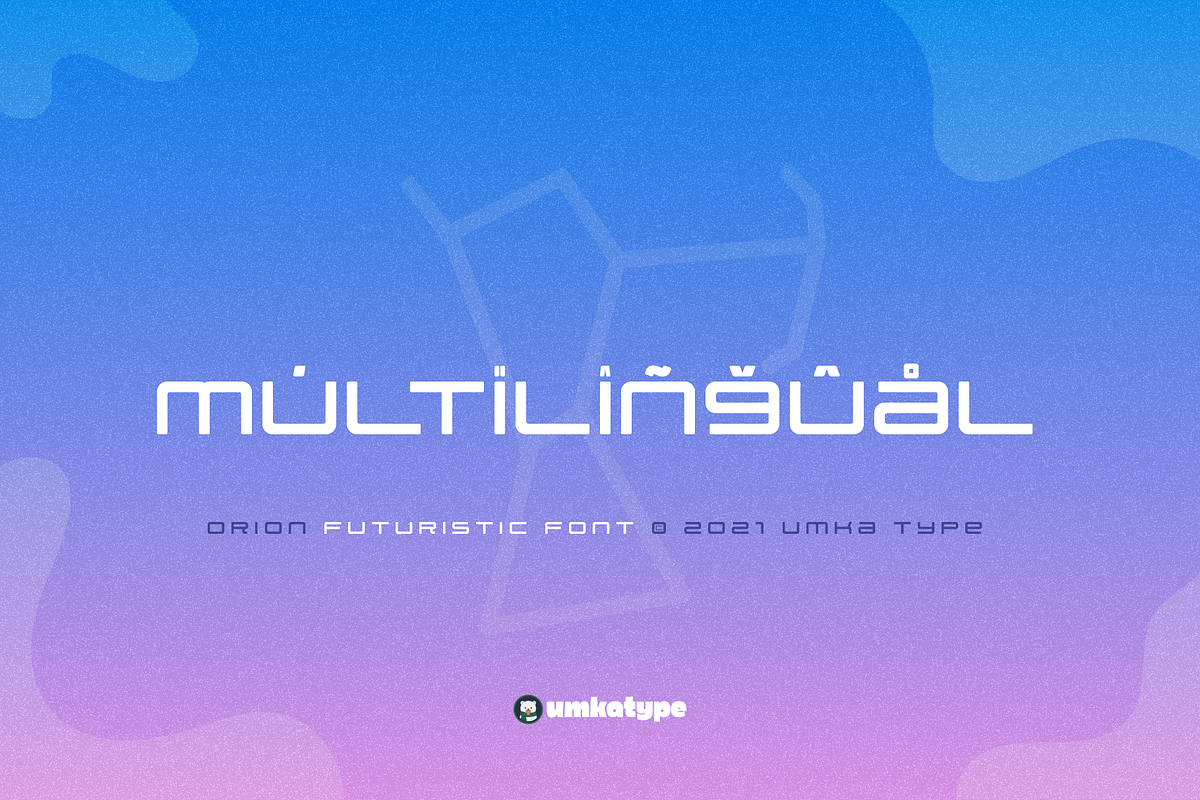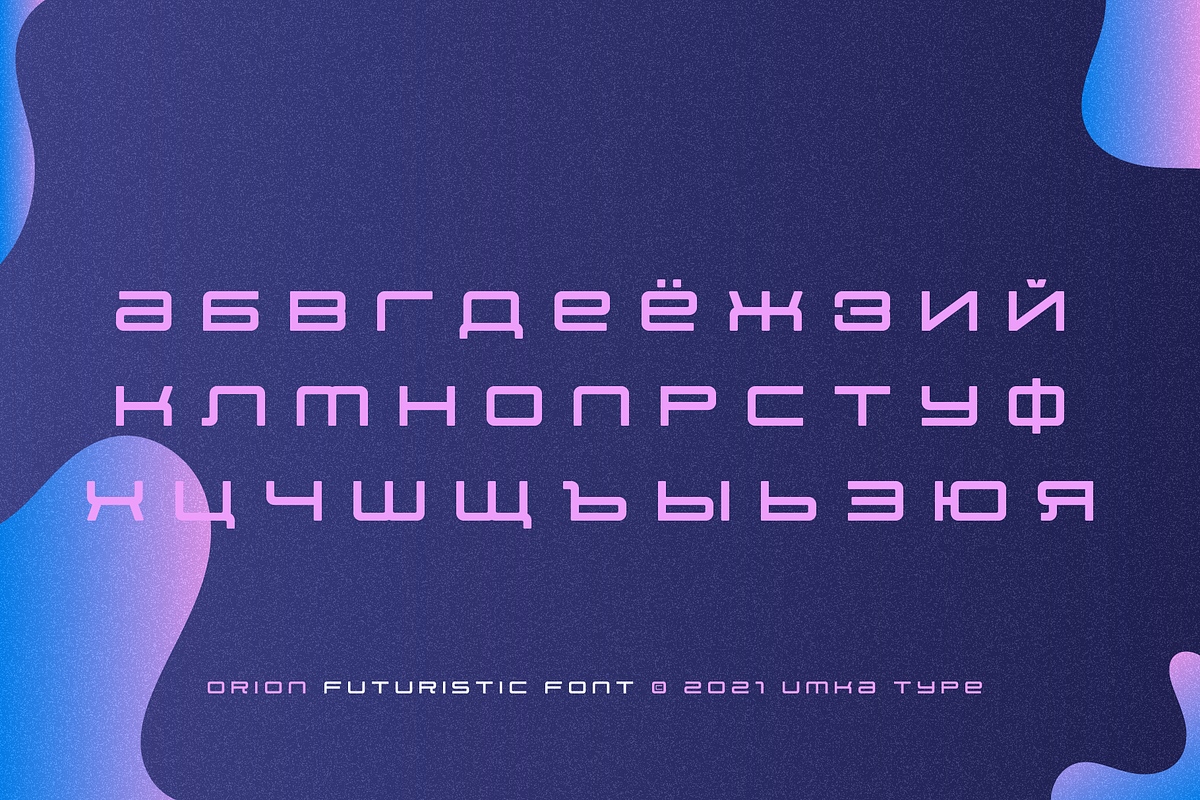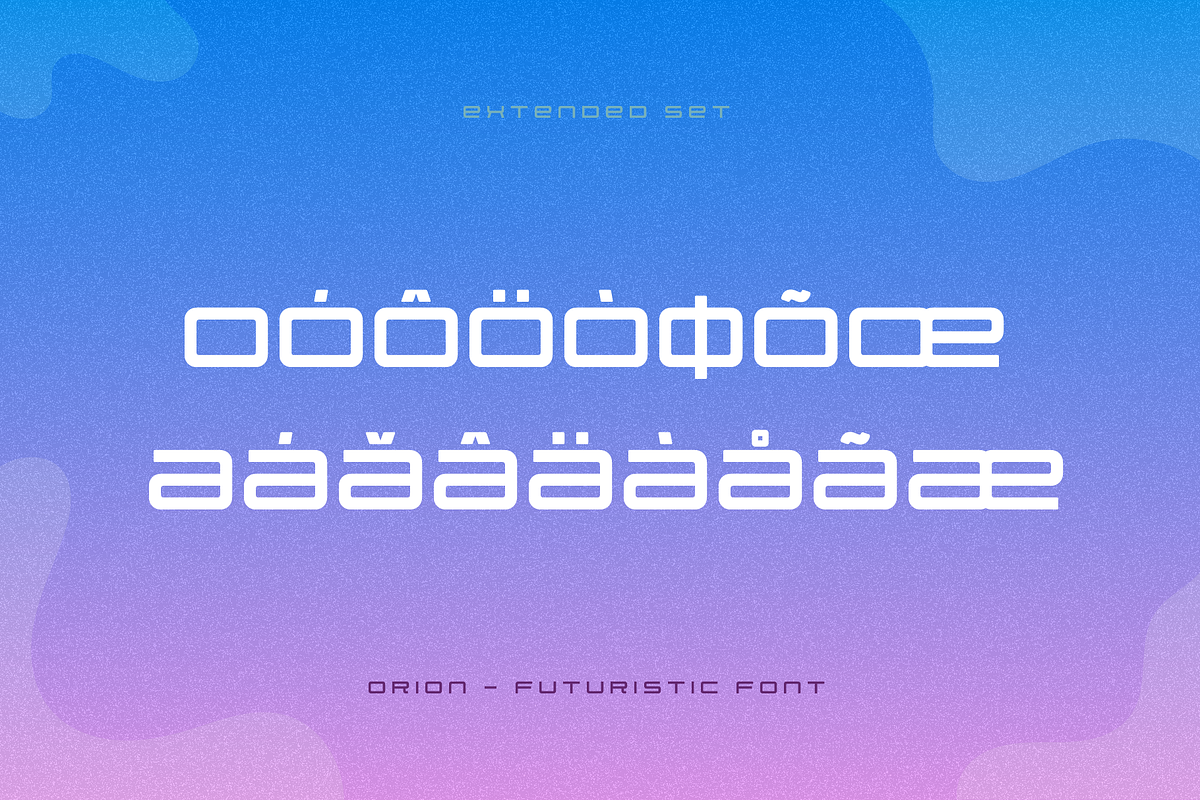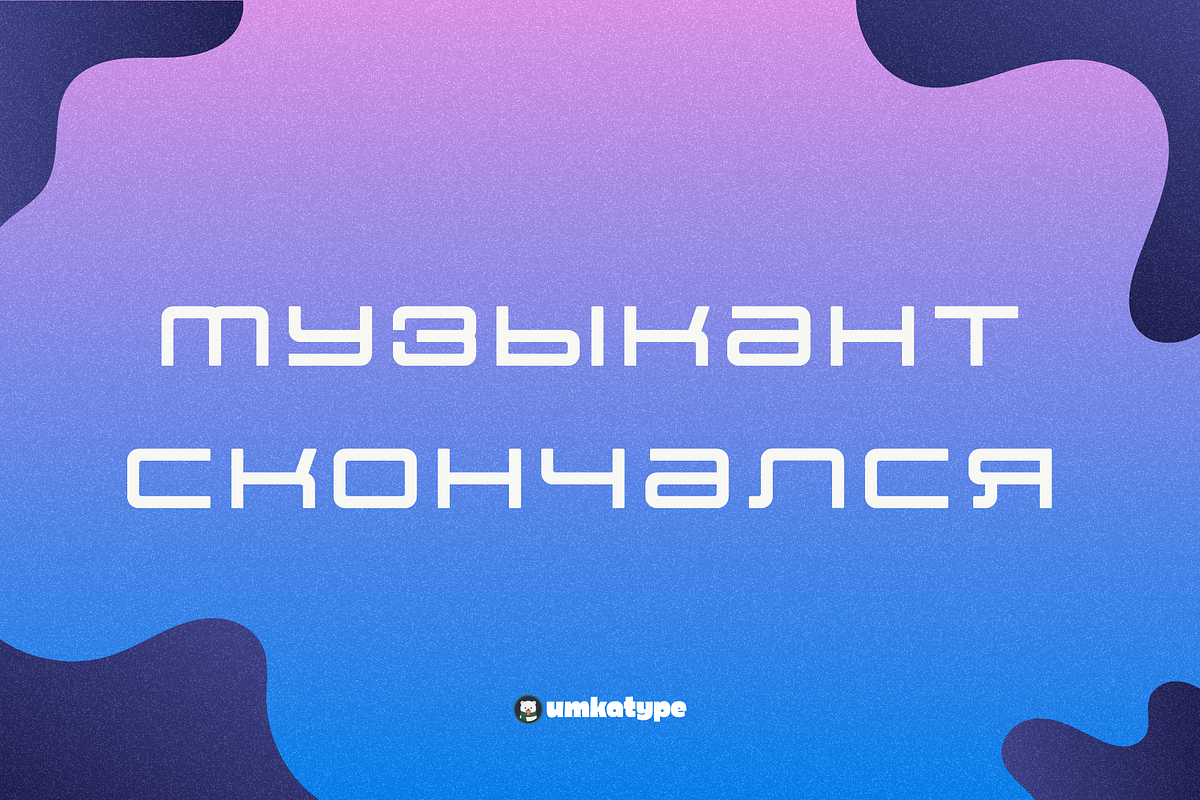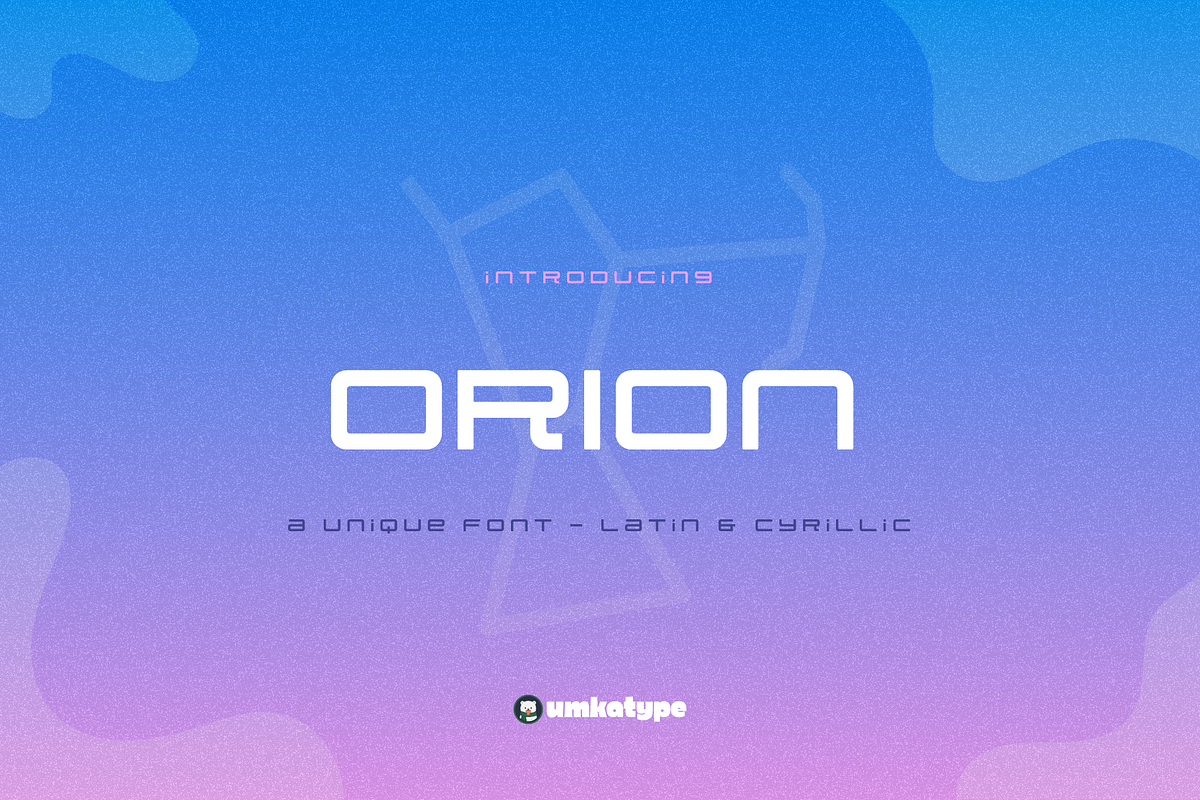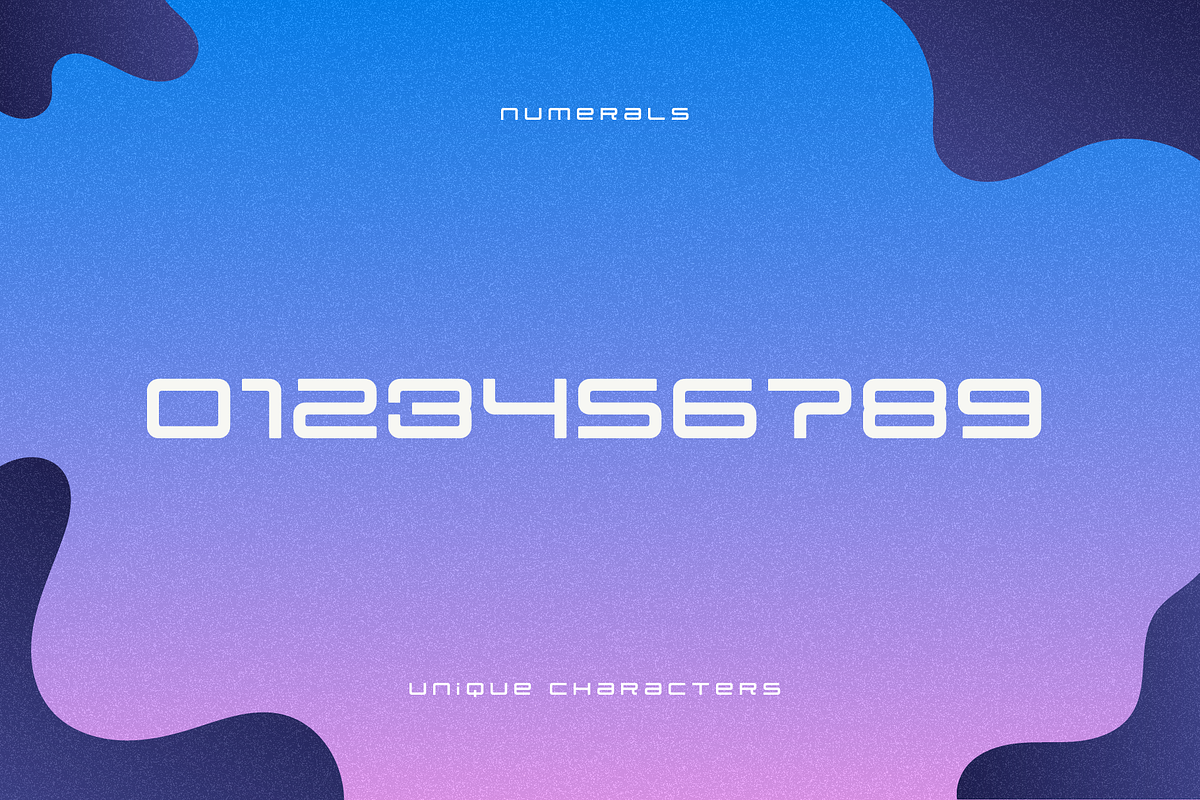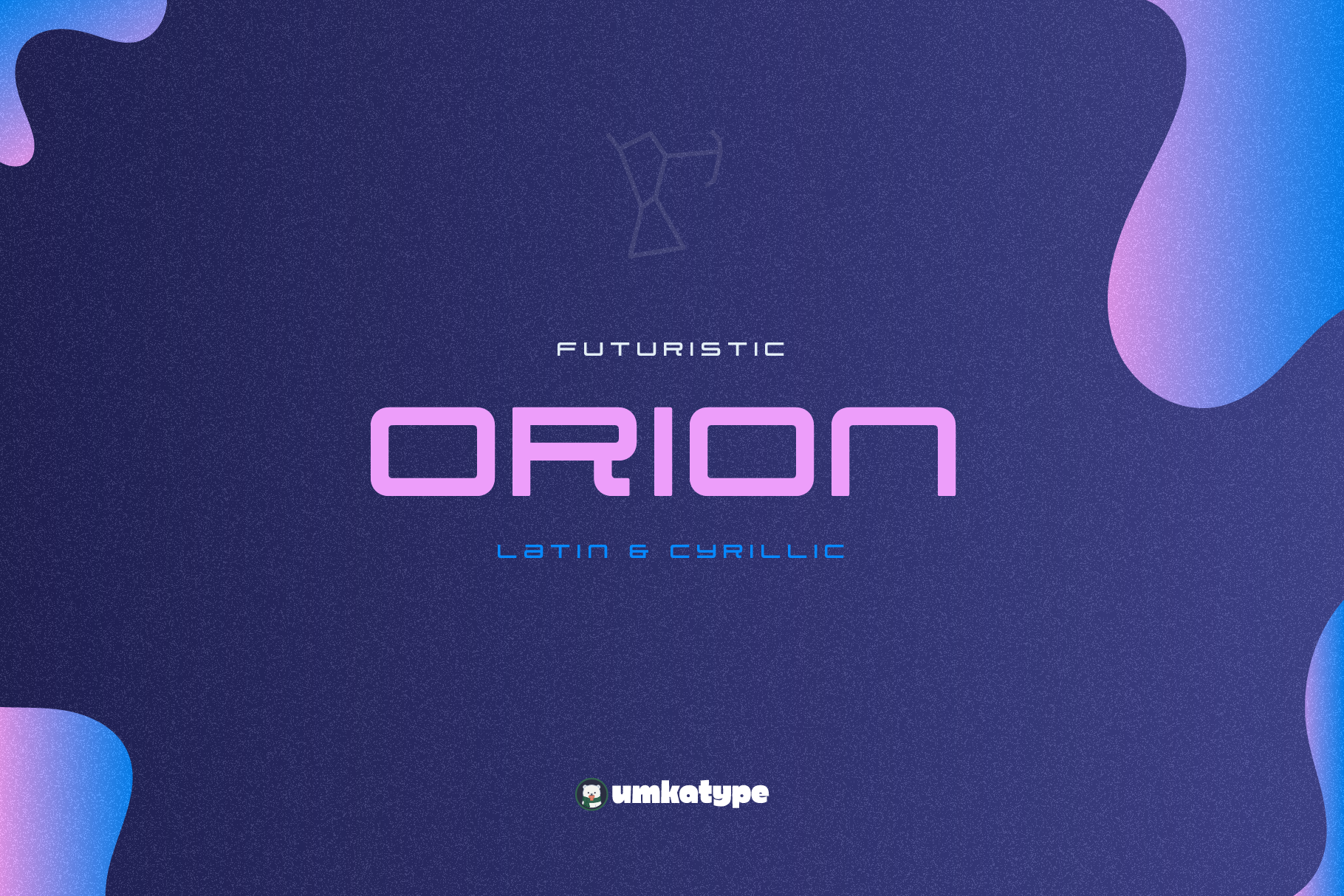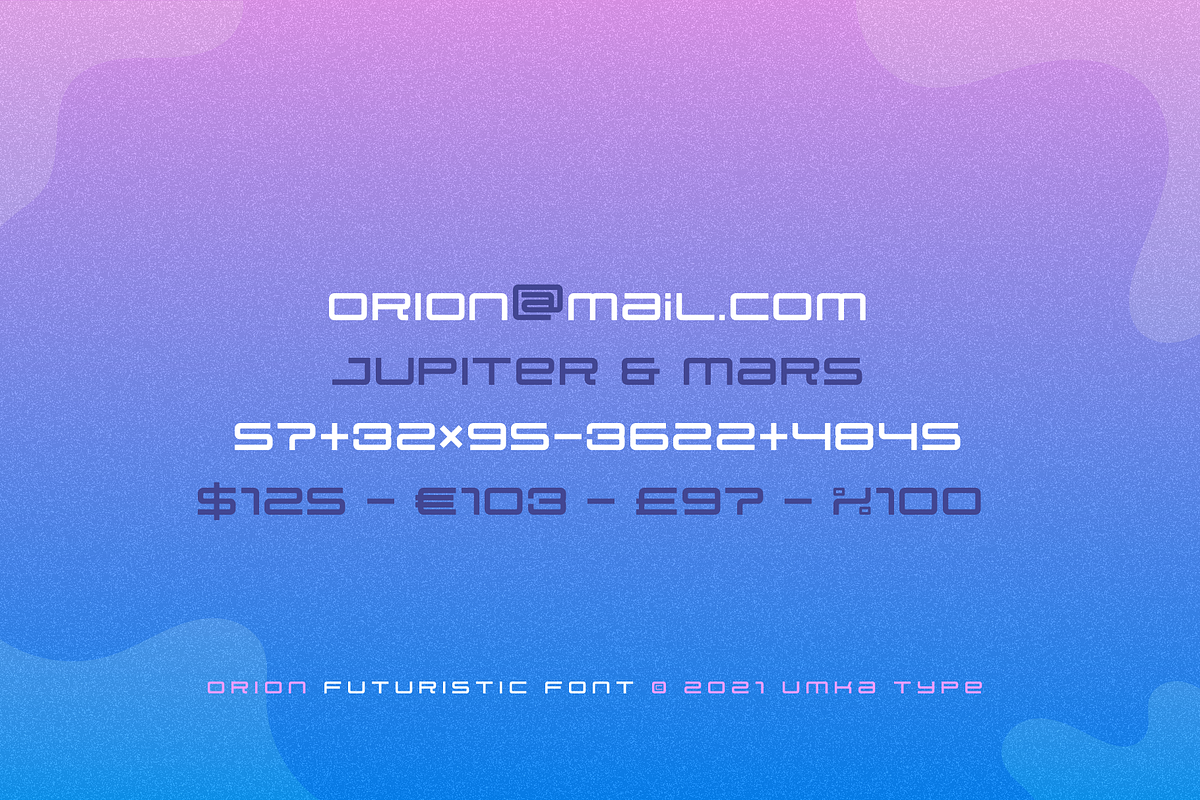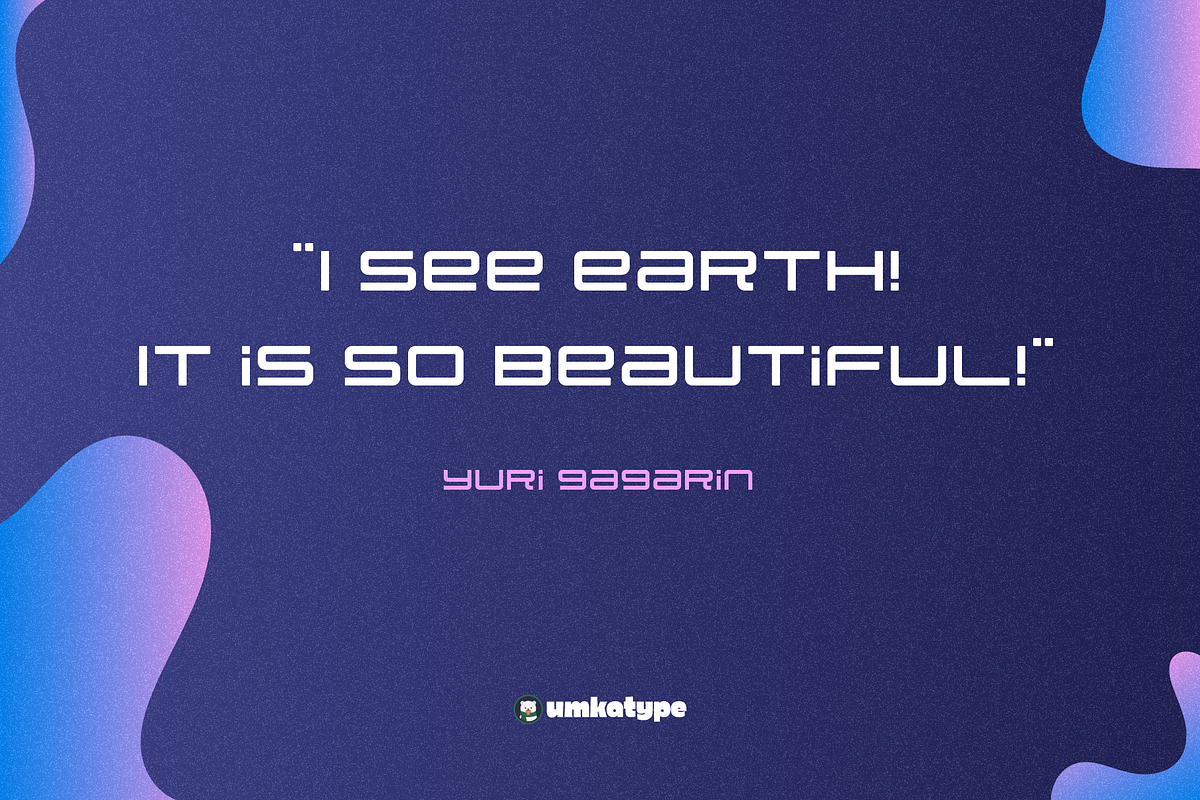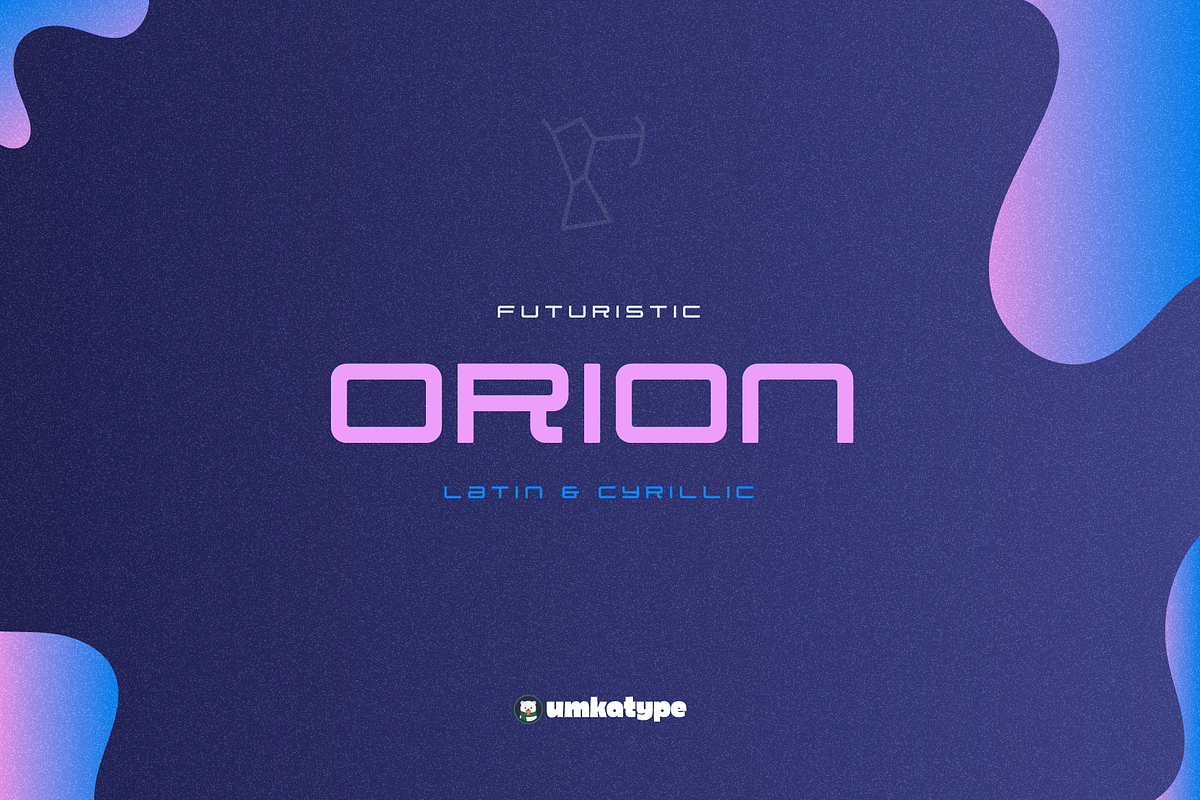
Orion Display Font
Orion - A Display Font
- Orion is a carefully crafted font.
- Multilingual: It has Extended Latin and Extended Cyrillic letters.
Orion created for games, web design, branding and social media works.